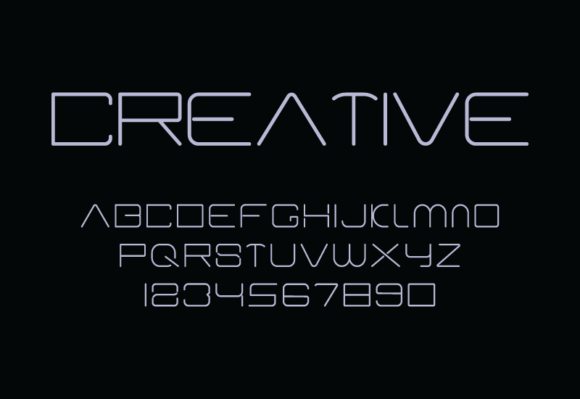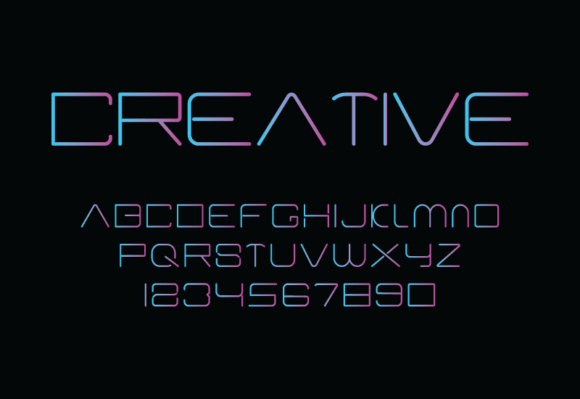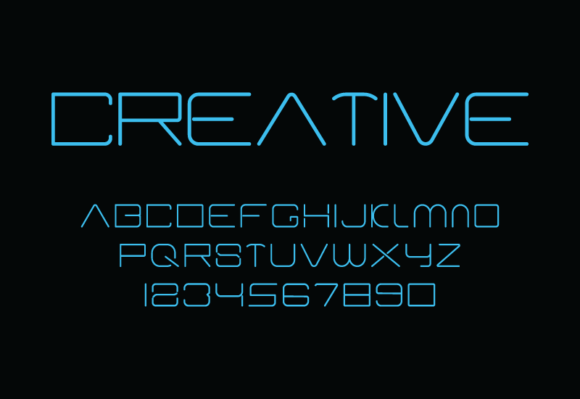
Unleash Your Creativity with the Modern Sans-Serif Font: Creative
In the realm of typography, a font can make or break the visual identity of a project. For designers and crafters looking to infuse their work with a dose of modernity and boldness, the Creative font is an exceptional choice. This cool and modern sans-serif font is designed to make your creative projects stand out from the crowd, thanks to its unique blend of contrasts and daring creativity.
The Artistry of Creative Font
The Creative font is not just a collection of letters; it’s a daring dance of contrasts and creativity. Each letterform bears the marks of bold decisions, with sharp and confident edges that seem as if sculpted by a master craftsman’s chisel. This meticulous attention to detail gives the font its distinctive look, making it perfect for projects that demand a touch of sophistication and modern flair.
Key Features of the Creative Font
- Modern Sans-Serif Design: The Creative font boasts a clean and modern sans-serif design, making it versatile for a wide range of applications, from digital media to print.
- Bold and Confident: With its sharp edges and confident lines, this font exudes a sense of boldness that’s sure to capture attention.
- High Versatility: Whether you’re working on a website, a logo, a brochure, or any other creative project, the Creative font can be seamlessly integrated to elevate your design.
- Easy to Read: Despite its boldness, the font maintains a high level of readability, ensuring that your message is conveyed clearly and effectively.
Applications of the Creative Font
The Creative font’s versatility is one of its most compelling attributes. Here are some of the many ways you can use this font to enhance your projects:
- Branding and Logos: Create a lasting impression with a logo that stands out, thanks to the font’s unique and bold characteristics.
- Web Design: Elevate your website’s typography to make it more engaging and modern.
- Print Materials: From business cards to posters, the Creative font can add a touch of modern sophistication to any print material.
- Digital Media: Use the font in your social media posts, presentations, and digital advertisements to make them more visually appealing.
Tips for Using the Creative Font
To make the most of the Creative font, consider the following tips:
- Pair it Wisely: Combine the Creative font with complementary fonts to create visual interest and hierarchy in your design.
- Experiment with Sizes: Play with different font sizes to emphasize certain parts of your text and create a dynamic layout.
- Adjust the Color: Choose colors that align with your brand’s palette or the mood you’re trying to convey, to maximize the font’s impact.
| Font Name | Creative Font |
| Author | GraphicsNinja |
The Creative font is a powerful tool for designers and crafters looking to add a modern and bold touch to their projects. Its unique blend of sharp edges, confident lines, and modern sans-serif design makes it an excellent choice for a wide range of applications. By incorporating the Creative font into your work, you’re not just choosing a font; you’re making a statement. Stand out from the crowd and unleash your creativity with this exceptional font.